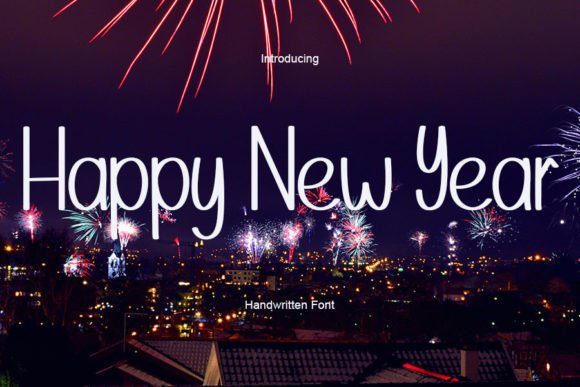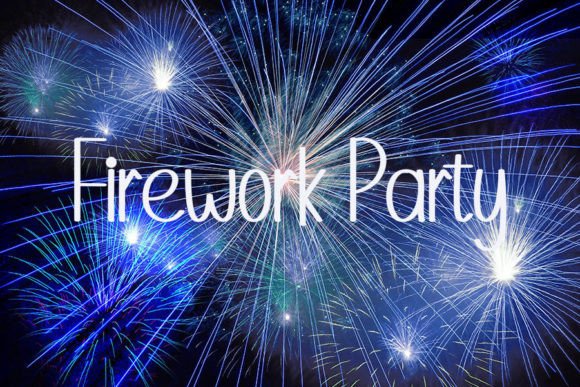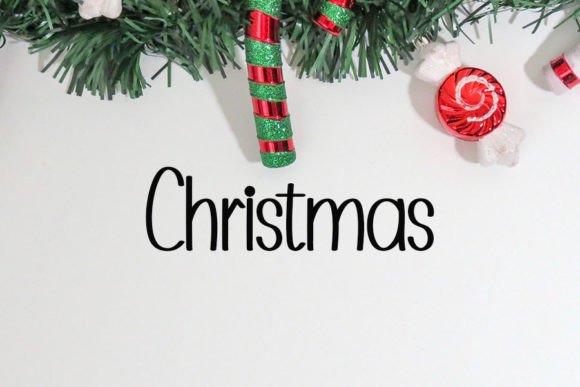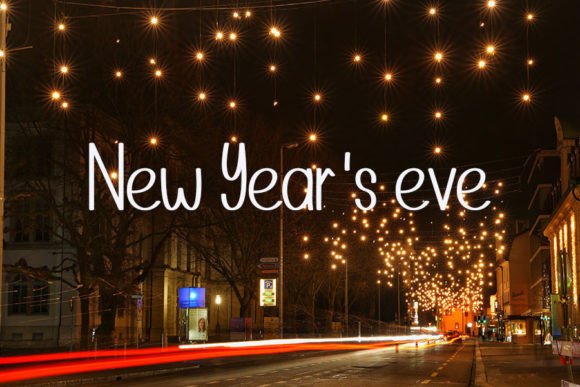
About Happy New Year Font
A Neat and Beautiful Handwritten Font
The Happy New Year Font is a neat and beautiful handwritten typeface that brings an elegant, timeless touch to any design. Its clean lines and artistic strokes make it a perfect choice for a wide variety of projects. Whether you’re working on greeting cards, wedding invitations, logos, or posters, the Happy New Year Font adds a touch of sophistication and personality to your designs.
Ideal for Special Occasions and Invitations
The Happy New Year Font is an excellent choice for special occasion invitations. Whether you’re designing New Year’s Eve invitations, wedding invites, or birthday cards, this font brings a personal and stylish touch. Its elegance and legibility ensure that your invitations look both beautiful and professional, creating a lasting impression on your guests.
Perfect for Logos and Branding
If you’re working on logos or branding materials, the Happy New Year Font is an excellent option. Its neat, handwritten design gives your brand a distinct, memorable identity, making it ideal for businesses in industries such as fashion, events, hospitality, and more. Whether you’re designing a company logo, tagline, or branding material, this font helps your brand stand out with a timeless, elegant style.
Great for Posters and Marketing Materials
The Happy New Year Font is perfect for posters, flyers, advertisements, and other marketing materials. Whether you’re creating event posters for a New Year’s celebration, advertising campaigns, or promotional content, this font adds a unique and attractive touch to your designs. Its neat handwritten style ensures that your marketing materials remain clear and eye-catching while retaining a timeless appeal.
Versatile for Multiple Design Applications
One of the key features of the Happy New Year Font is its versatility. This font can be used in a variety of design projects, from product labels and business cards to social media graphics and custom stationery. Whether you’re working on a personal project or business design, this font’s elegant and clean design ensures that your work has a professional and unique flair.
Timeless and Distinct Design
The Happy New Year Font is not just any handwritten font – it is described by its distinct and timeless style, making it perfect for creating memorable designs. Its delicate strokes and elegant shape ensure that your projects will feel personal, yet still polished and sophisticated. Whether for a greeting card or wedding invitation, this font adds a sense of class and individuality to your work.
Despite its elegant, artistic design, the Happy New Year Font is easy to use and adaptable for all types of design projects. Whether you’re working with graphic design software, creating print designs, or working on web projects, this font ensures that your content is legible and beautiful. Its versatile design ensures it works well in both large and small text, making it perfect for various design needs.
Create Spectacular Designs with Happy New Year Font
If you’re looking for a timeless, beautiful handwritten font to enhance your designs, the Happy New Year Font is the perfect choice. Whether you’re working on wedding invitations, greeting cards, logos, or marketing materials, this font brings elegance and style to your work. Add a unique touch to your projects and create spectacular designs with the Happy New Year Font.